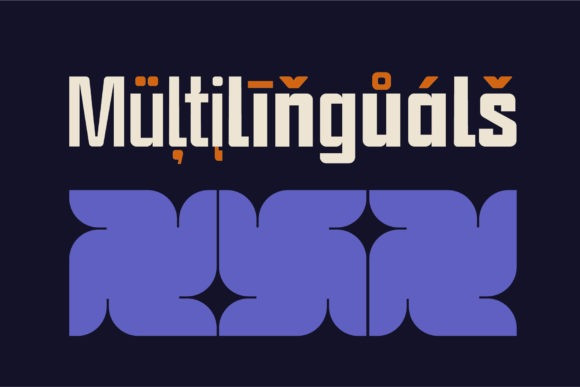
Sgraffito Font
Sgraffito is a bold, thick lettered and assertive display font. It will elevate a wide range of crafting ideas, from cards, to branding, labels and much more.